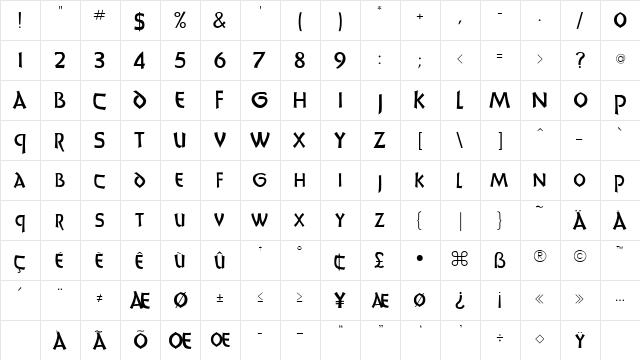
Uncia Dis Medium
Design Context for Uncia Dis Typeface
Uncia Dis takes a measured approach to typography — its balanced proportions and neutral character make it a reliable workhorse for both digital and print work.